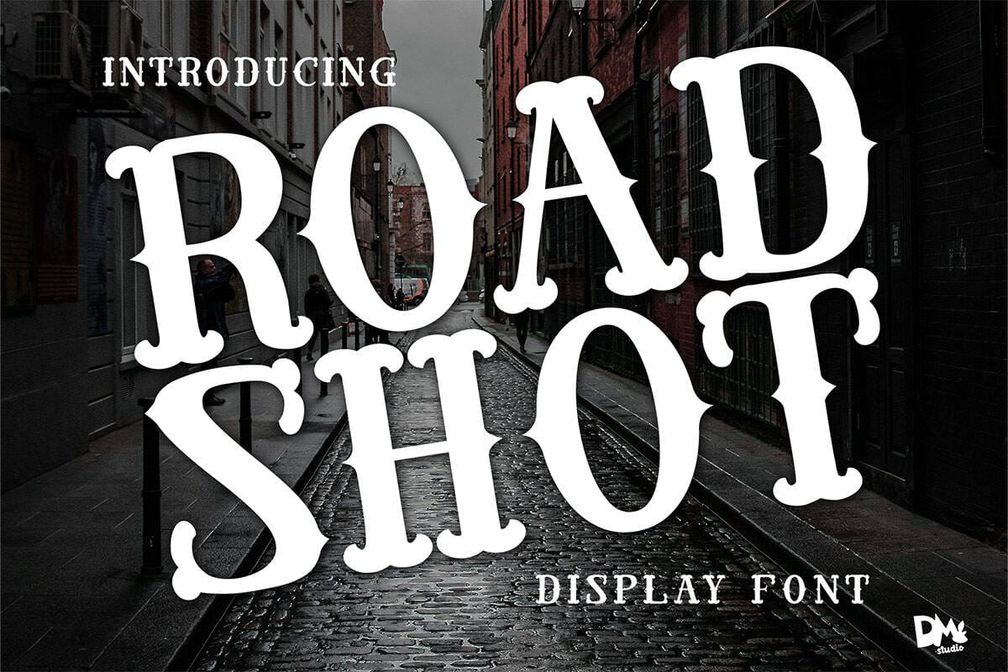
Road Shot – Display Vintage Font
The Road Shot Display Vintage Font is a bold and nostalgic typeface that embodies the spirit of classic Americana and adventure. With its rugged letterforms and vintage charm, this font brings a touch of nostalgia and authenticity to your designs, making it perfect for signage, posters, apparel, and other projects that evoke a sense of exploration.
1. Vintage and Adventurous Style: The Road Shot Font exudes a rugged and adventurous aesthetic, reminiscent of classic American road trips and exploration. Its bold letterforms and vintage design capture the essence of a bygone era, adding a nostalgic and authentic feel to your designs.
2. Display Vintage Design: The font’s display style commands attention and evokes a sense of authority. Its strong and distinctive letterforms make it ideal for creating impactful headlines, signage, logos, and other design elements that require a bold and vintage touch.
3. Versatile Application: This font is versatile and well-suited for various design projects that aim to evoke a sense of adventure and nostalgia. Use it in signage, posters, apparel design, branding, and more to add a touch of vintage charm and authenticity to your designs.
4. Uppercase and Lowercase Letters: The font includes both uppercase and lowercase letters, providing flexibility and creative freedom in your designs. Mix and match the cases to create visually appealing and balanced typography.
5. Punctuation and Symbols: In addition to the alphabet, the Road Shot Font includes a comprehensive set of punctuation marks, numerals, and common symbols. This ensures consistency and ease of use when incorporating the font into your design projects.
Evoke the spirit of classic Americana and adventure with the Road Shot Display Vintage Font. Let its rugged letterforms and vintage charm bring a touch of nostalgia and authenticity to your signage, posters, and apparel designs. Embrace the timeless allure of this font and create designs that capture the essence of exploration and the open road.